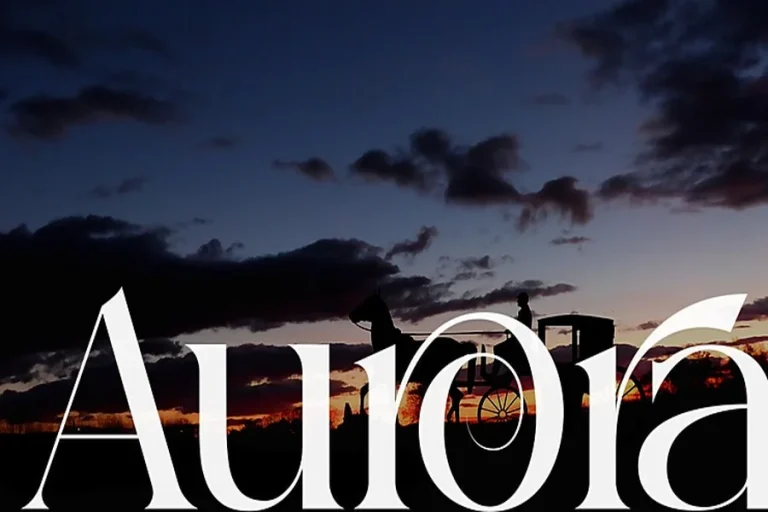
Aurora Font Styles, Uses, and Design Ideas
Aurora font has become a popular choice for designers who want a clean yet expressive typeface. It is both elegant and slightly contemporary, which makes it an appropriate branding tool, social media graphics, invitation, and even site header. Its rounded shapes and the harmonious forms of the letters attract the attention of many creatives. The typeface is sophisticated but not overly formal and this provides it with versatility in various projects.
Typography in the modern visual world does not just carry words. It builds mood and identity. The font selected can influence the perception that a person will have of a brand or a message. Aurora font does this well because it carries both softness and strength. That harmony makes it shine in the overcrowded design spaces.
What Makes Aurora Font Unique
Aurora font is often recognized for its flowing lines and graceful structure. It can have script-inspired strokes or contemporary serif elements depending on the version. The letters tend to be uniformly spaced without compromising style as it enhances readability.
It is versatile, which is one of its greatest strengths. It may be romantic in wedding invitations. It is also fashion branding that can appear bold and stylish. The curved lines bring a feeling of motion, whereas the smooth finishes make the design smooth.
The fact that the uppercase and lowercase letters are used to complement each other is something designers value. The capitals will be rather confident but not overwhelming of the rest of the text. The small letters tend to be friendly and intimate. The balance assists in developing layouts that are comfortable and readable.
The other important characteristic is that it can be useful at various sizes. In large headings, Aurora font draws attention. It tends to be legible and understandable in smaller parts of the text when it is used correctly.
Popular Uses of Aurora Font in Design
Aurora font appears across many design categories. It is particularly prevalent in branding work where personality is an issue. It is widely used in the fashion industry, in boutique shops, beauty brands, and creative agencies to build a high culture image.
The font is beautiful in social media graphics, which enhances beauty to quotes and announcements. It is used by influencers and small business owners to promote products, banners, and highlights on their profiles. Its sleek design will aid content to be highlighted in the rapid scrolling feeds.
Wedding and event stationery is another area where Aurora font shines. The romantic nature of the card can be used in invitations, save the date cards and thank you notes. The digital production of printed materials creates the impression of handcrafted strokes despite the smooth texture of strokes.
This typeface is also useful in the website header and title of the blog. It contrasts well with a plain and simple sans serif body font. The combination makes the content easier to read and the visual identity remains also strong.
Another use that is on the rise is the packaging design. Cosmetic boxes, candle labels, and luxury product tags often use Aurora font to signal quality and sophistication.
How to Pair Aurora Font with Other Typefaces
Fonts are compatible with one another and typography is most effective in this way. Aurora font often performs well as a headline or accent font. It can be balanced by combining it with a neutral sans serif.
As an illustration, a contrast between decorative and simple makes it combine with a minimal geometric font. This would ensure that the design does not look too cluttered. The key is to let Aurora font be the focal point while supporting text remains understated.
In case you want to have a more traditional appearance, you can also combine it with a less pronounced serif font. Aurora should then be used as titles and secondary serif as body text. This brings harmony and does not compromise readability.
Spacing also matters. Space the letters well. Do not put too many in close proximity. Height and padding lines are used properly to ensure clarity.
The font feel is affected by the color choice used. The soft pastel colors emphasize its sophisticated side. It can make it more dramatic and modern, using bold black or deep navy.
Aurora Font in Branding and Marketing
Typography is essential in brand identity. Aurora font can shape how customers feel about a business. It is sophisticated with its smooth lines that imply innovation and detail. This will be suitable with fashion labels, beauty salons, lifestyle blogs, and handmade products brands.
The personality can be conveyed immediately in the font of logos. A carefully adjusted wordmark using Aurora font often feels unique and personal. Letter spacing can be customized or some of the strokes can be modified by designers to achieve a unique appearance.
Can Aurora font be used for commercial projects?
Does Aurora font work well with sans serif fonts?
Aurora font pairs well with clean sans serif fonts, creating contrast and balance between decorative and simple elements.
Is Aurora font good for logo design?
Aurora font can be an excellent choice for logo design, especially for brands that want a refined and creative appearance.